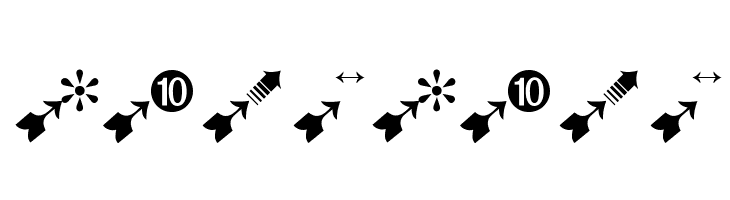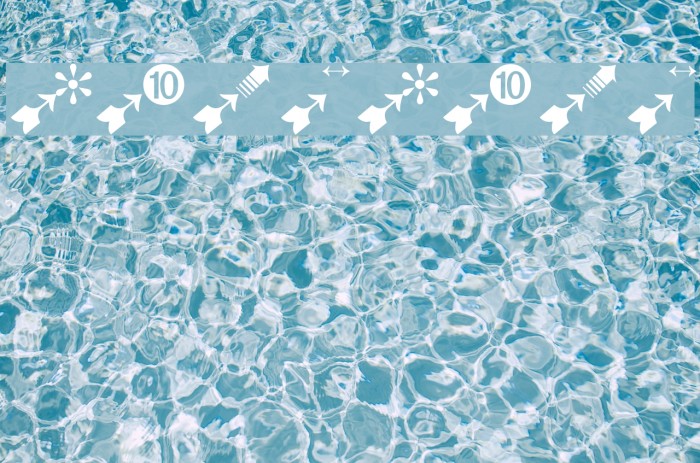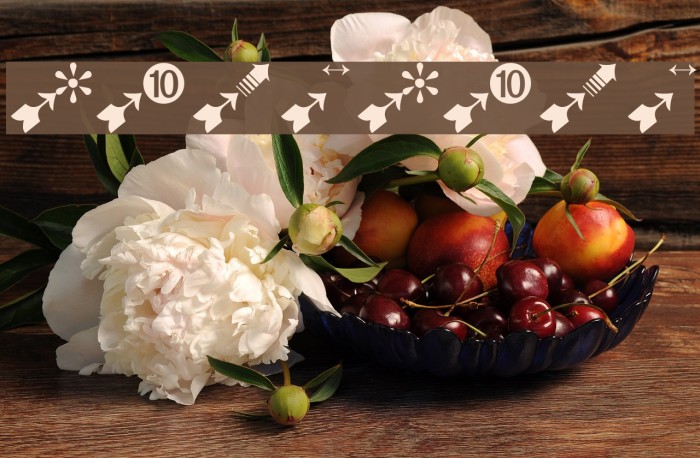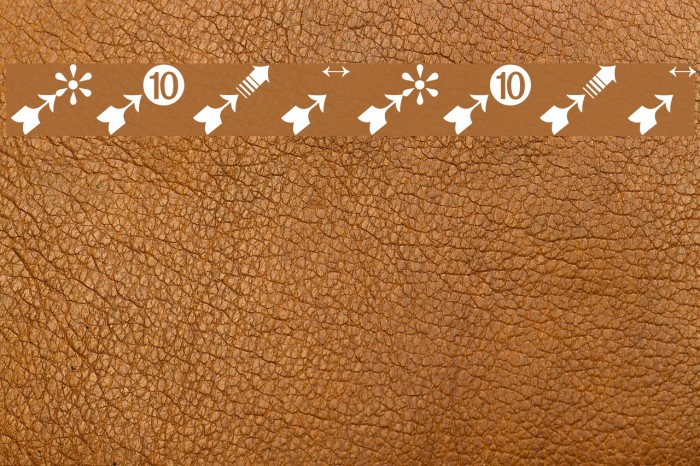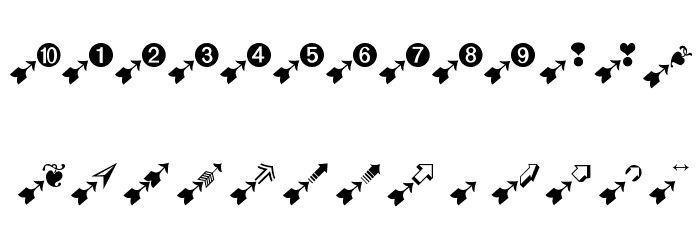
BatzBatz Font
BatzBatz Description
This is a decorative font featuring a variety of playful and whimsical symbols. The characters include a mix of floral motifs, arrows, stars, and numbers encased in circles. Each symbol is accompanied by a bold arrow, creating a dynamic and engaging visual effect. The style is consistent throughout, with a focus on bold, clear lines and a playful aesthetic. The font is ideal for creative projects that require a touch of fun and uniqueness. It does not follow traditional alphabetic or numeric patterns, making it more suitable for decorative purposes rather than text-based content.
A decorative font with playful symbols and bold arrows from Uncategorized fonts.
- Proposed Projects: Ideal for greeting cards, scrapbooking, decorative borders, and creative design projects.
- Use Case: Logos, Decorative elements